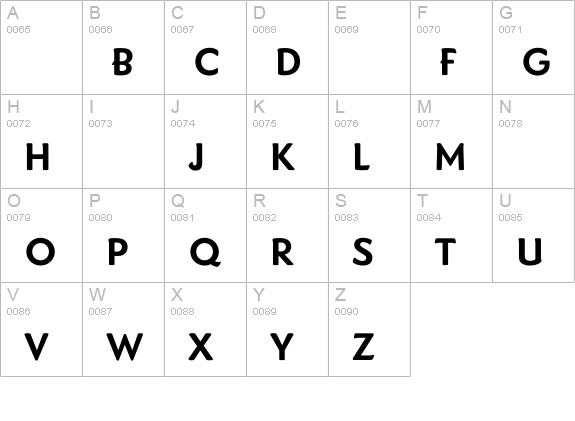
DundeeBold Font Details
DundeeBold is a striking and versatile typeface that exudes confidence and modernity. Its bold letterforms make a powerful statement, perfect for headlines, logos, and branding projects that demand attention. The clean lines and subtle curves give DundeeBold a timeless appeal, making it suitable for a wide range of design applications. What sets DundeeBold apart is not only its bold and commanding presence but also its accessibility. This high-quality font is available for free download at FontsMarket.com, making it a valuable resource for designers, creatives, and enthusiasts alike. Whether you're working on a professional project or a personal endeavor, DundeeBold is ready to elevate your designs with its bold and impactful aesthetic. Download DundeeBold today from FontsMarket.com and discover the endless possibilities this versatile typeface has to offer. Elevate your design projects with DundeeBold's bold charisma and make a lasting impression with every word you create.